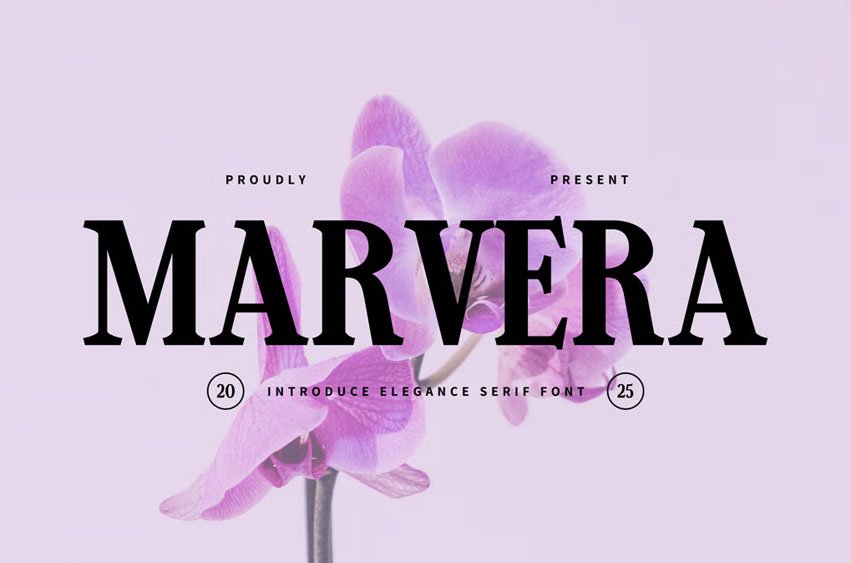
Marvera Font
Marvera Font is a bold display serif font featuring playful curves and vintage elegance perfect for logos branding posters headlines packaging editorials and social media.
Its strong character clear readability and retro modern charm help designs stand out attract attention and boost visual impact across creative and commercial projects worldwide usage